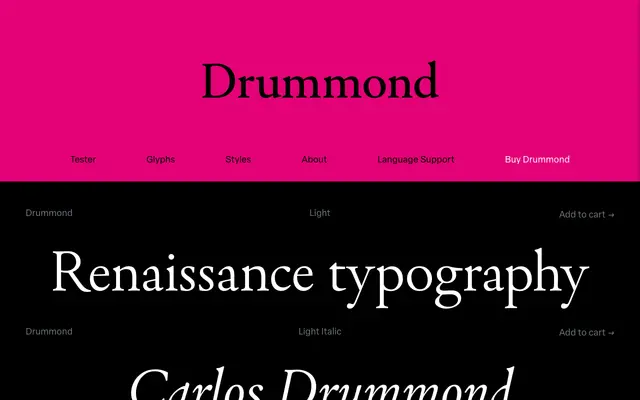
Drummond
A Renaissance serif by Emerson Eller, rooted in the fragmented Mediane Romaine matrices of the Plantin-Moretus collection and the sixteenth-century French tradition of Claude Garamont.
Developed during a type design course at the Museum Plantin-Moretus in Antwerp, Drummond takes its starting point from an incomplete set of matrices in the Plantin-Moretus inventory, described in the catalogue as resembling but distinct from the Median Romain used by Garamont around 1545. The family runs across five weights from Light to Bold, each with a matching italic, plus variable font versions of both upright and italic axes. Its grounding in primary archival research gives it a specificity and historical texture that distinguishes it from generic Garamond revivals.
Drummond is rooted in sixteenth-century French Renaissance typography, specifically drawn from the Mediane Romaine matrices in the Plantin-Moretus collection and the tradition of Garamont. Its letterforms reflect the humanist calligraphic origins and classical proportions of that era.